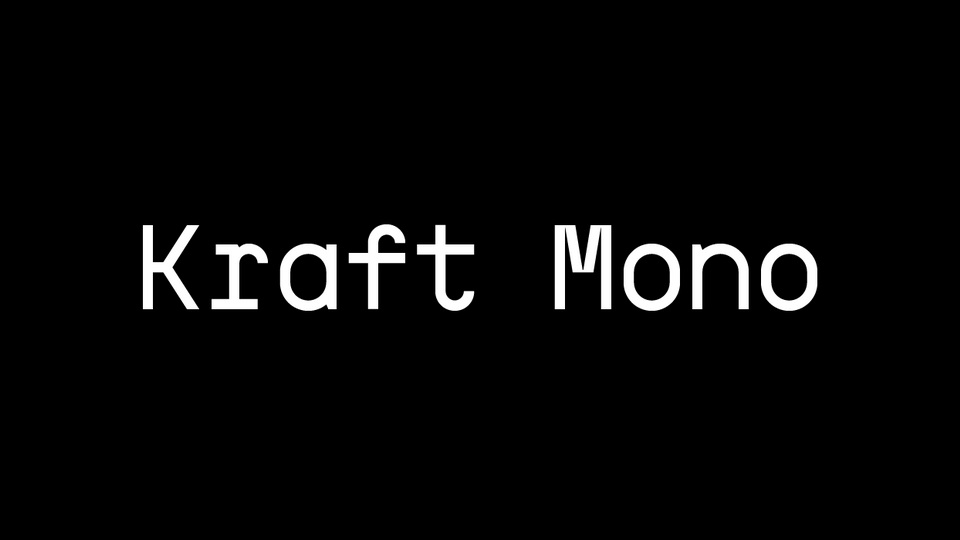
Download Kraft Mono font, a monoline monospaced geometric compass-and-ruler typeface inspired by Space Mono and signage in Belgian train stations.
Designer: Renaud Giuliano